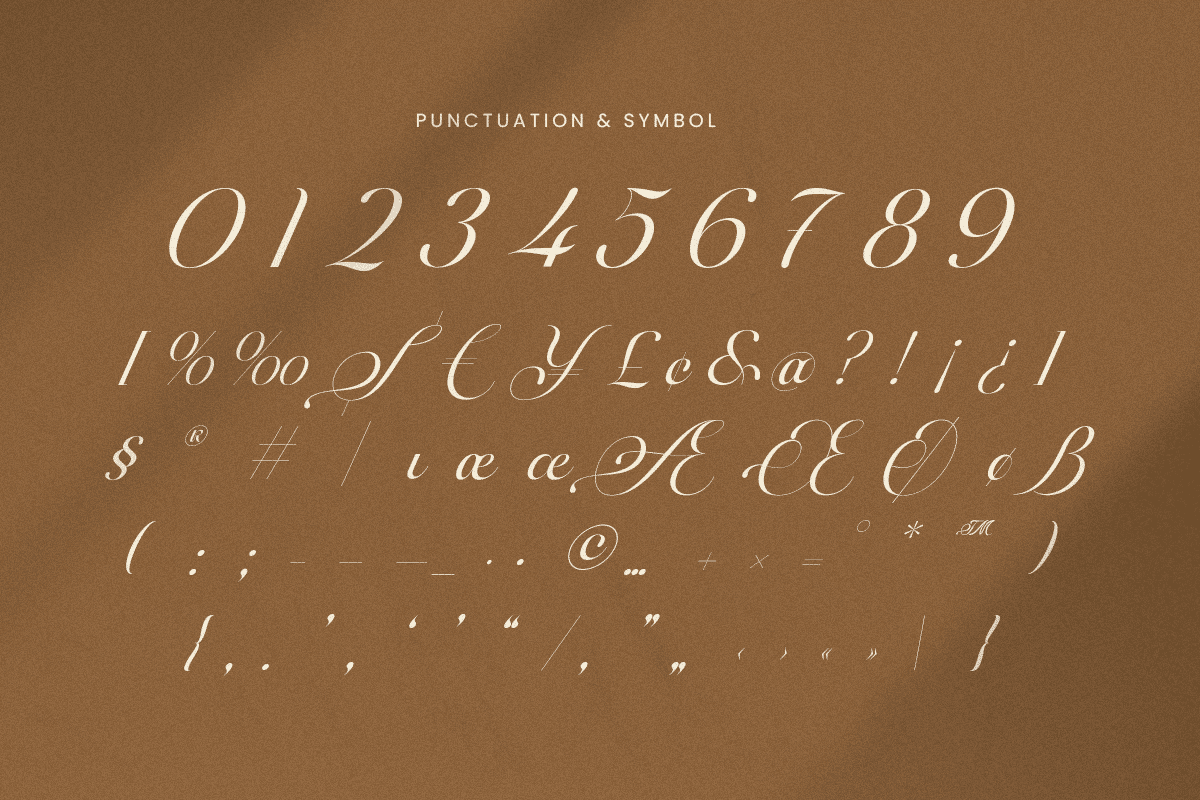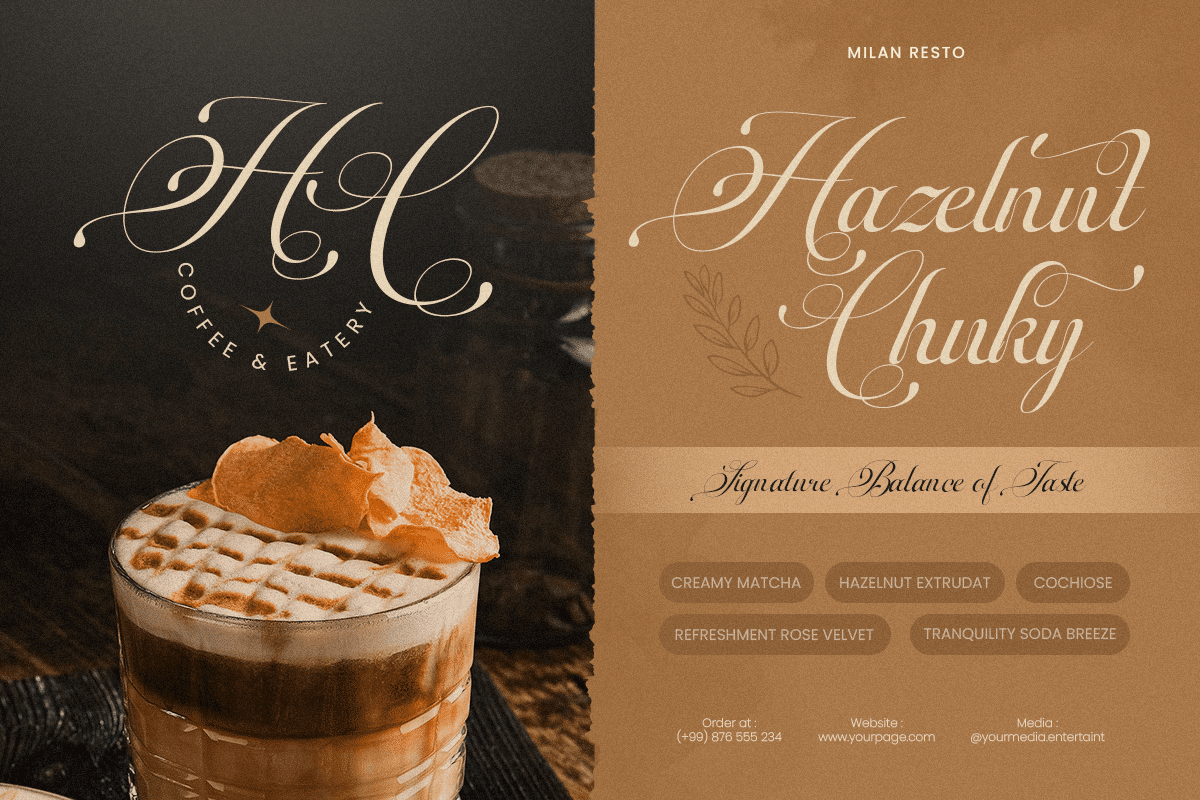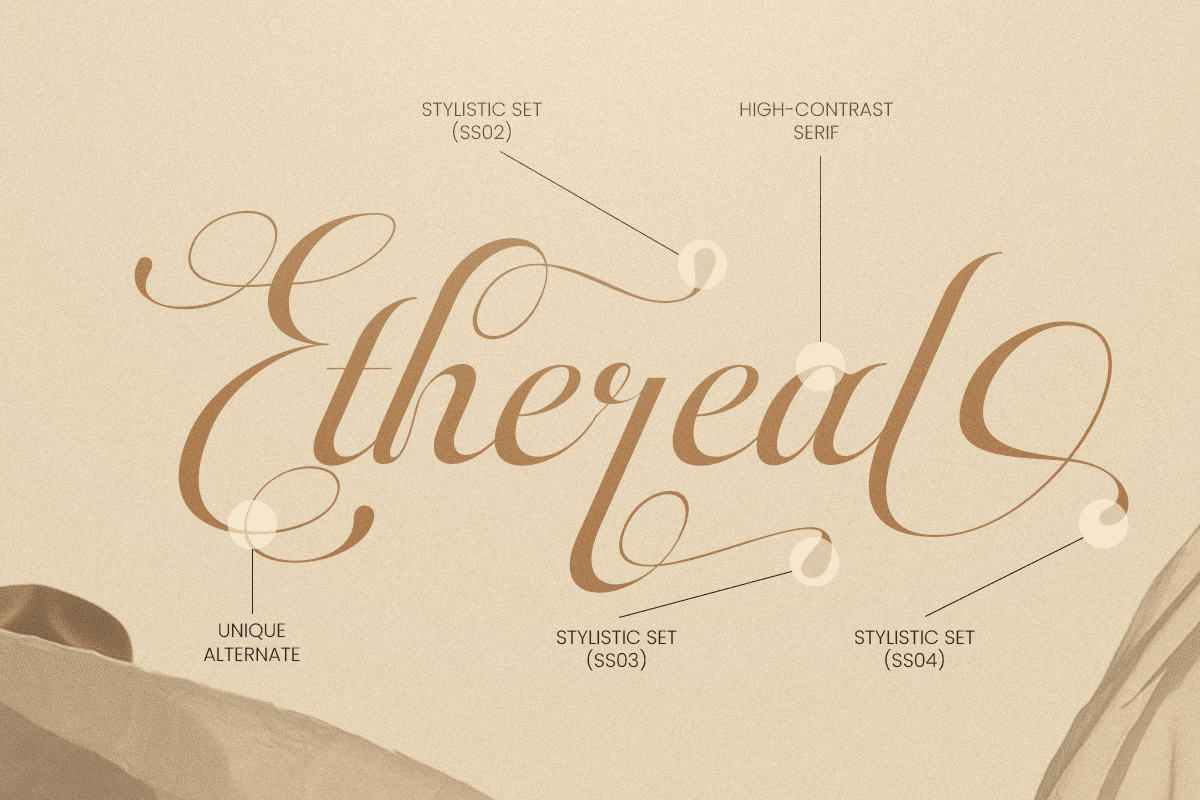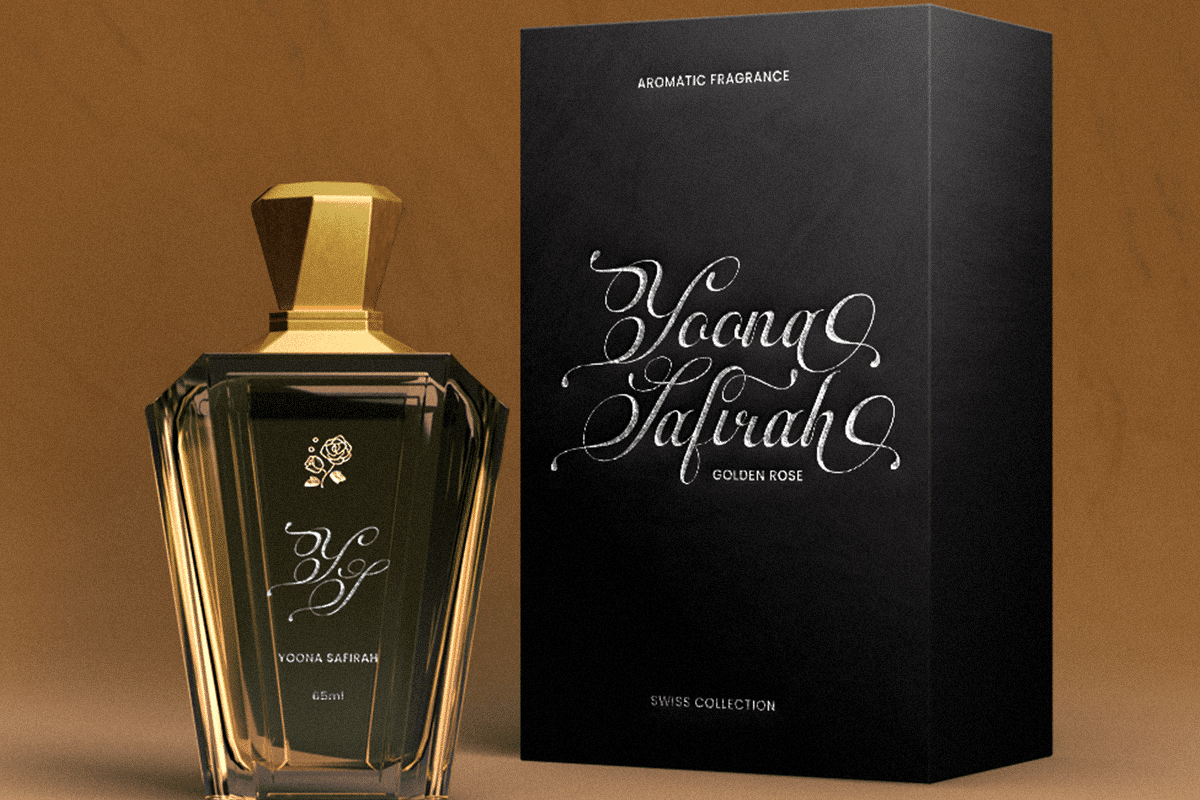
Delova – Modern Elegant Script Font
Delova is a modern elegant script font crafted to bring graceful movement and refined sophistication to your typography. With flowing strokes, polished curves, and a beautifully balanced handwritten rhythm, this typeface creates a premium visual tone that feels stylish, feminine, and instantly memorable.
Built for elegant branding and signature-style design, Delova works beautifully across logos, wordmarks, website headers, packaging, labels, invitations, editorial layouts, social media graphics, presentations, and upscale marketing visuals. Its script structure adds a personal, luxurious touch while maintaining clarity across both digital and print applications.
Whether you’re building a beauty brand, creating boutique packaging, designing romantic stationery, or crafting premium promotional materials, Delova provides an elegant script foundation that makes your typography feel expressive, polished, and unforgettable.
Inspiration Behind Delova
Delova is inspired by luxury signature lettering and modern feminine branding—where graceful curves, fluid rhythm, and elegant detail shape premium visual identity. The design focuses on refined handwritten movement and upscale balance to support sophisticated branding with a soft, stylish, and timeless presence.
Delova Font Features:
- Modern elegant script letterforms with refined handwritten character
- Perfect for premium branding, logos, and signature-style typography
- Graceful flowing strokes for stylish visual identity
- OpenType features for polished professional typesetting
- Luxury logos, wordmarks, and premium brand identity systems
- Fashion, beauty, skincare, fragrance, and boutique branding
- Invitations, stationery, labels, and romantic promotional design
- Editorial layouts, website headers, and elegant headline styling
- Social media campaigns, presentations, and upscale marketing assets
Add graceful elegance to your branding with Delova—a modern script font made for premium, stylish visual storytelling. ✨